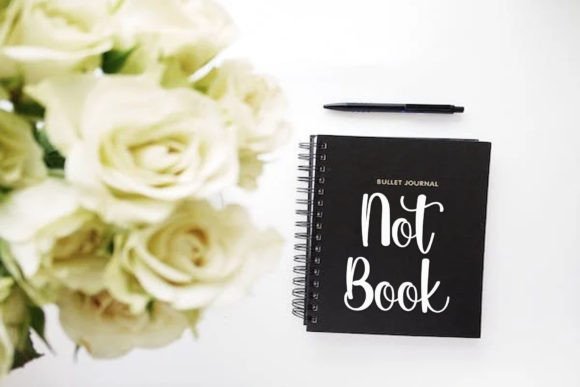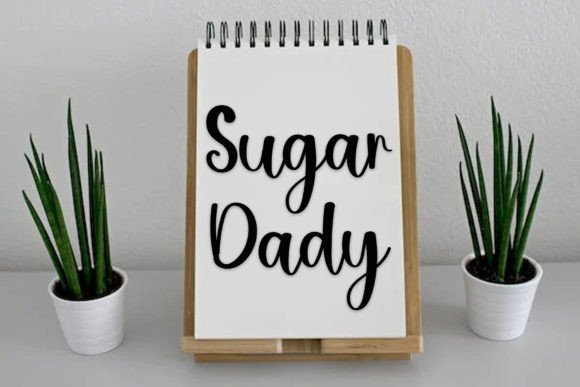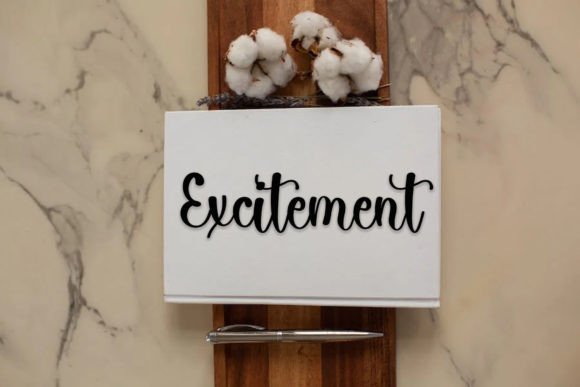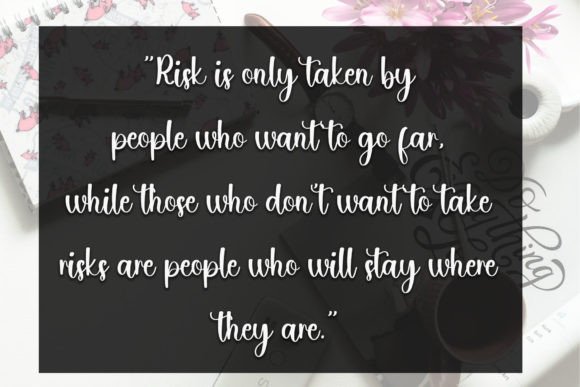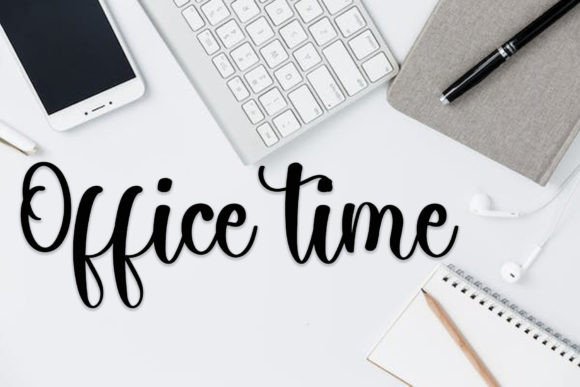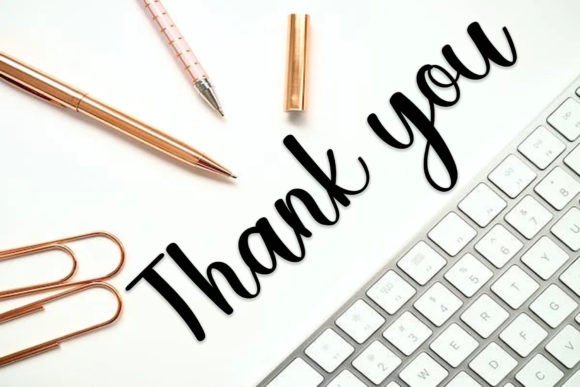
Hello Baby Font: The Ultimate Typeface for Whimsical Designs
The Hello Baby Font is a delightful and playful typeface that captures the joy and innocence of childhood. Its whimsical letterforms and friendly curves evoke a sense of warmth and happiness, making it the perfect addition to any design project that requires a cheerful and enchanting touch.
What Makes Hello Baby Font So Special?
The Hello Baby Font is a unique and charming typeface that stands out from the crowd. Its distinctive features include:
- Whimsical letterforms: Each letter is carefully crafted to resemble a playful, hand-drawn font, complete with subtle imperfections and quirks that add to its charm.
- Friendly curves: The font’s smooth, rounded curves create a sense of warmth and approachability, making it perfect for designs that require a friendly and inviting tone.
- High legibility: Despite its playful nature, the Hello Baby Font remains highly legible, even at smaller font sizes, making it suitable for a wide range of design applications.
Perfect for Baby-Related Designs
The Hello Baby Font is specifically designed with baby-related projects in mind. Its sweet and innocent aesthetic makes it perfect for:
- Baby shower invitations: Create adorable and eye-catching invitations that set the tone for a joyful celebration.
- Children’s books: Bring your story to life with a font that’s both fun and engaging for young readers.
- Nursery decor: Use the Hello Baby Font to create custom wall art, banners, and other decorative elements that add a touch of whimsy to a baby’s nursery.
Beyond Baby Designs: Other Creative Applications
While the Hello Baby Font is perfect for baby-related projects, its versatility means it can be used in a wide range of creative applications, including:
- Crafting and DIY projects: Add a personal touch to your handmade crafts, such as knitted items, woodwork, or paper crafts.
- Wedding and event planning: Use the Hello Baby Font to create sweet and sentimental wedding stationery, party decorations, or favors.
- Branding and packaging: Add a playful and approachable touch to your brand’s packaging, labels, or marketing materials.
The Hello Baby Font is a delightful and versatile typeface that’s perfect for designers and crafters looking to add a touch of whimsy and joy to their projects. With its playful letterforms, friendly curves, and high legibility, this font is sure to bring a smile to anyone’s face. Whether you’re creating baby-related designs, crafting DIY projects, or simply looking for a fun and creative font, the Hello Baby Font is the perfect choice.